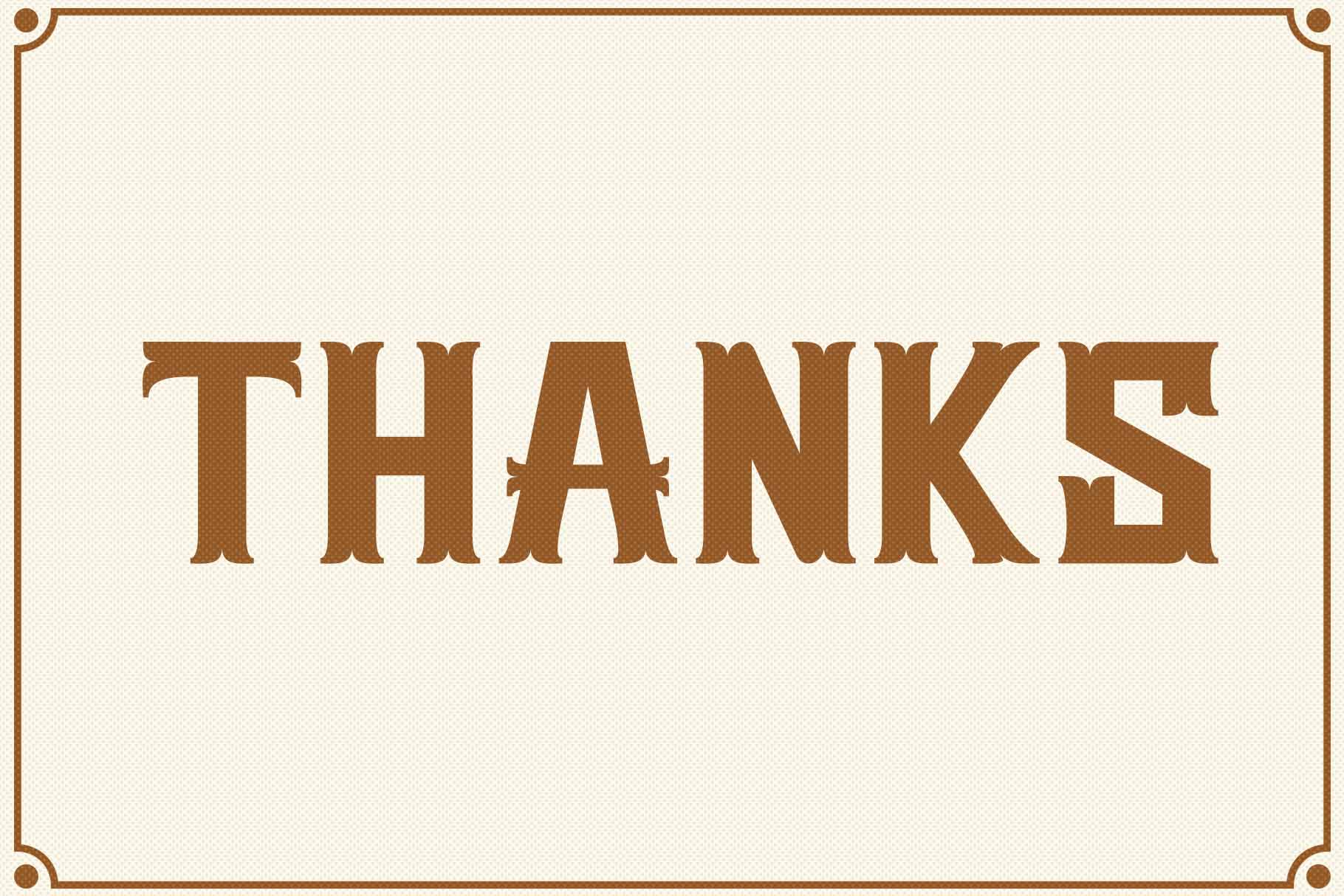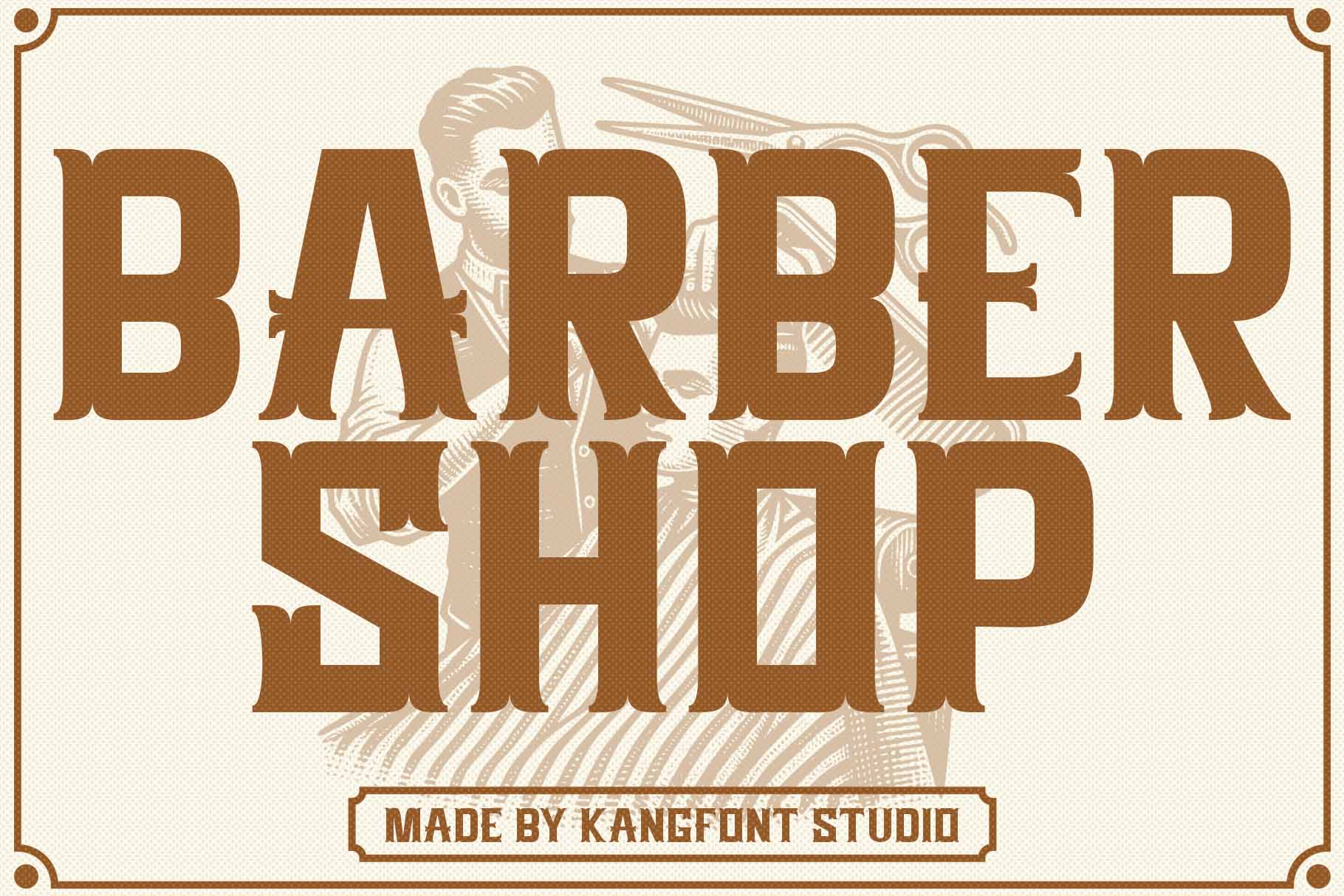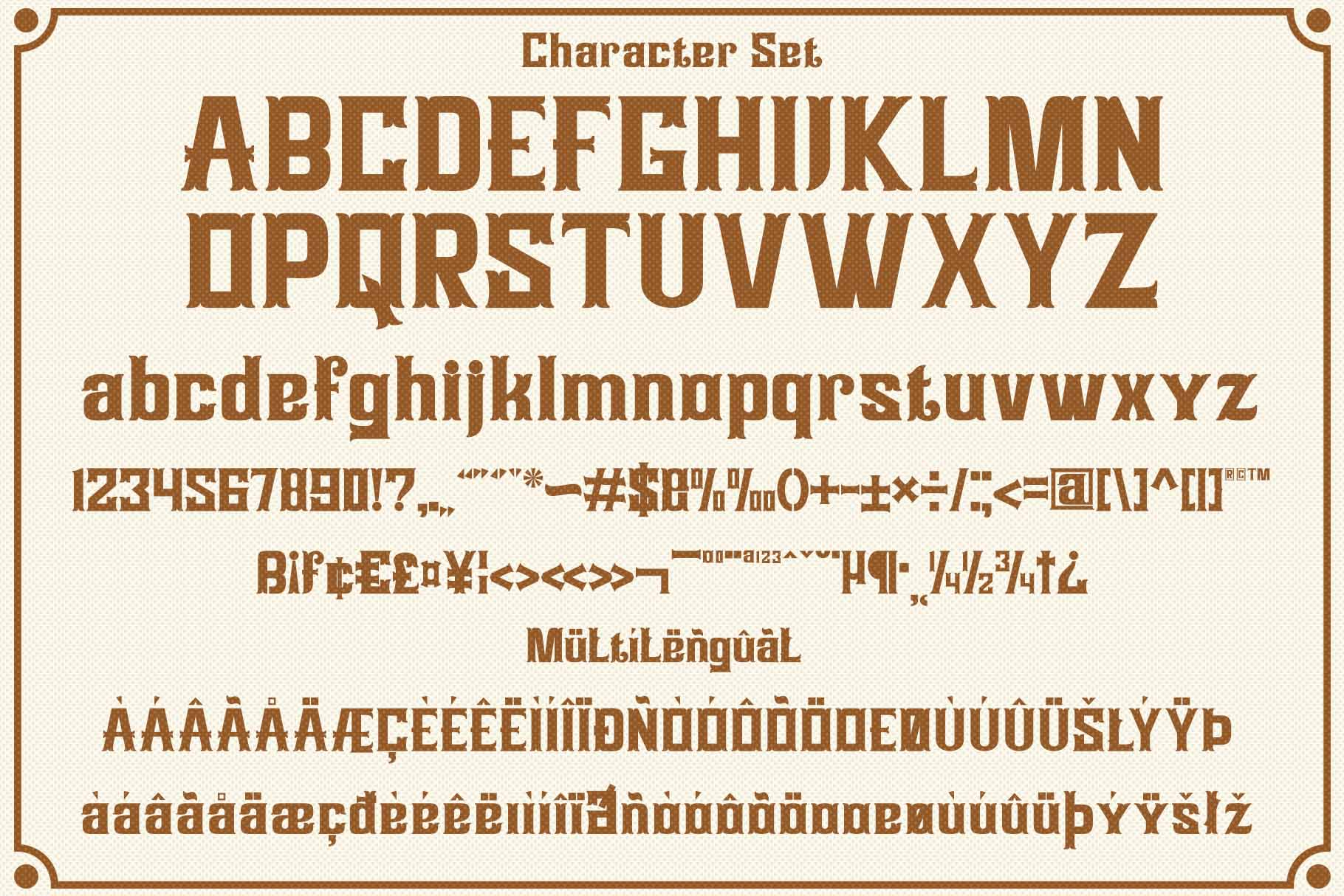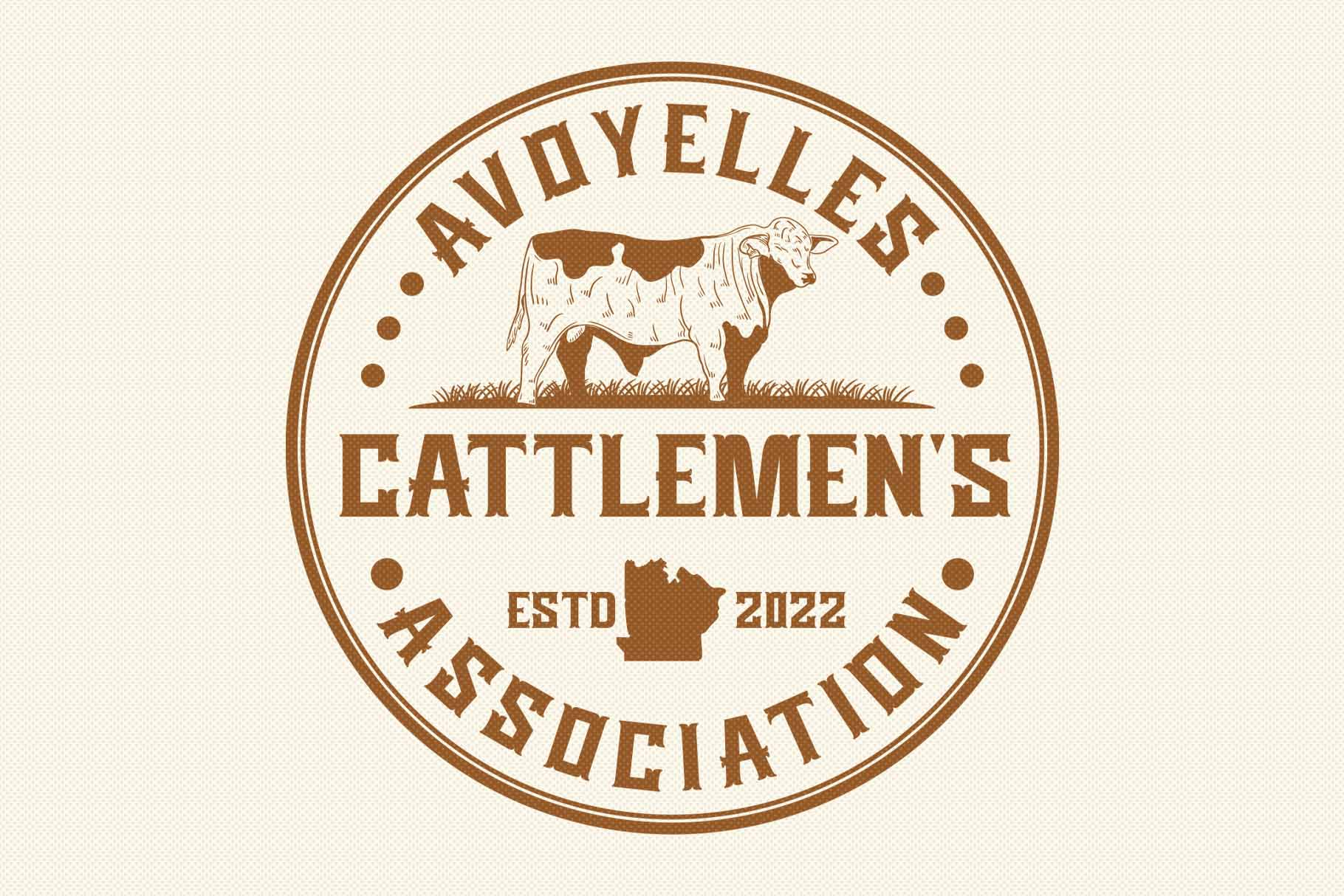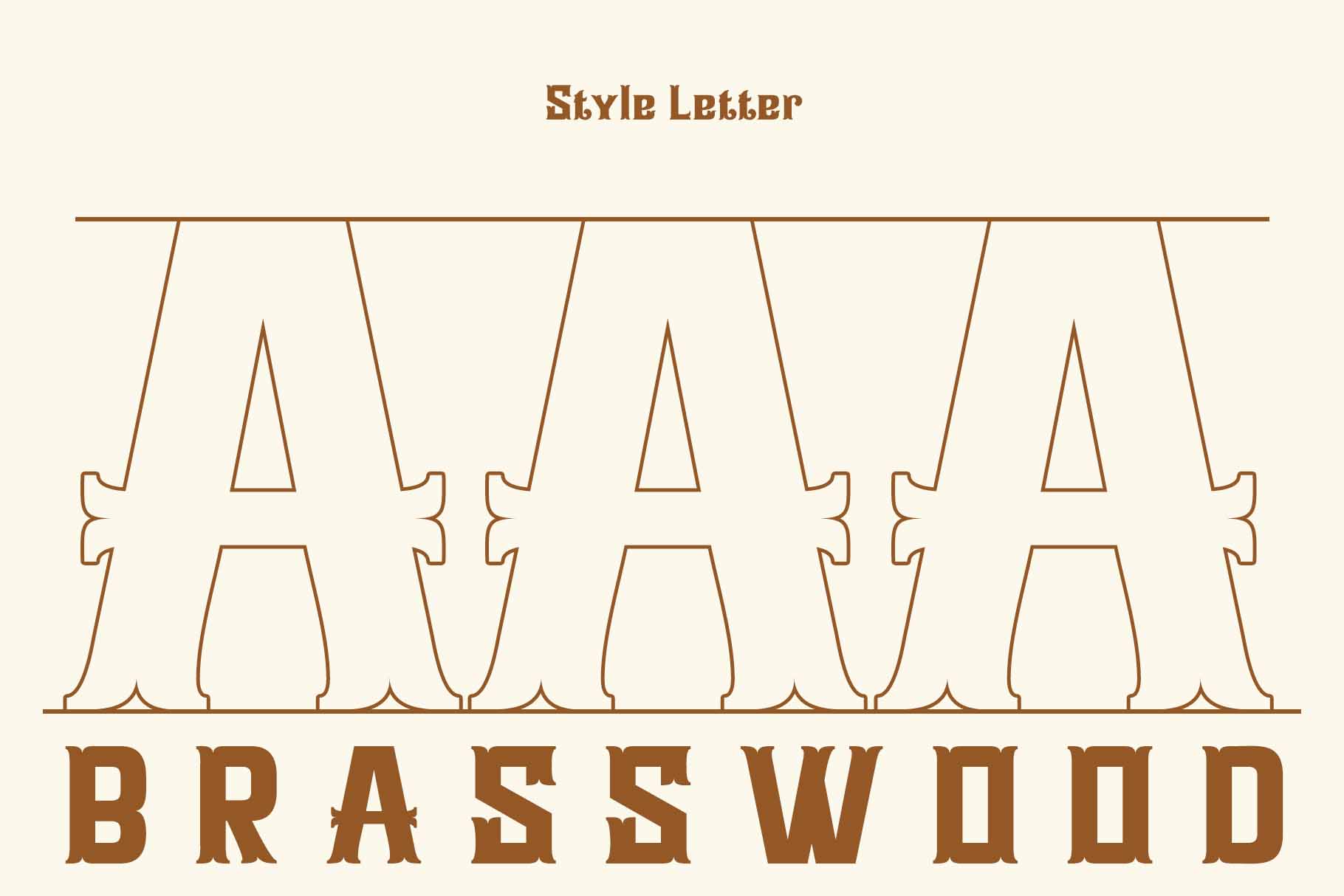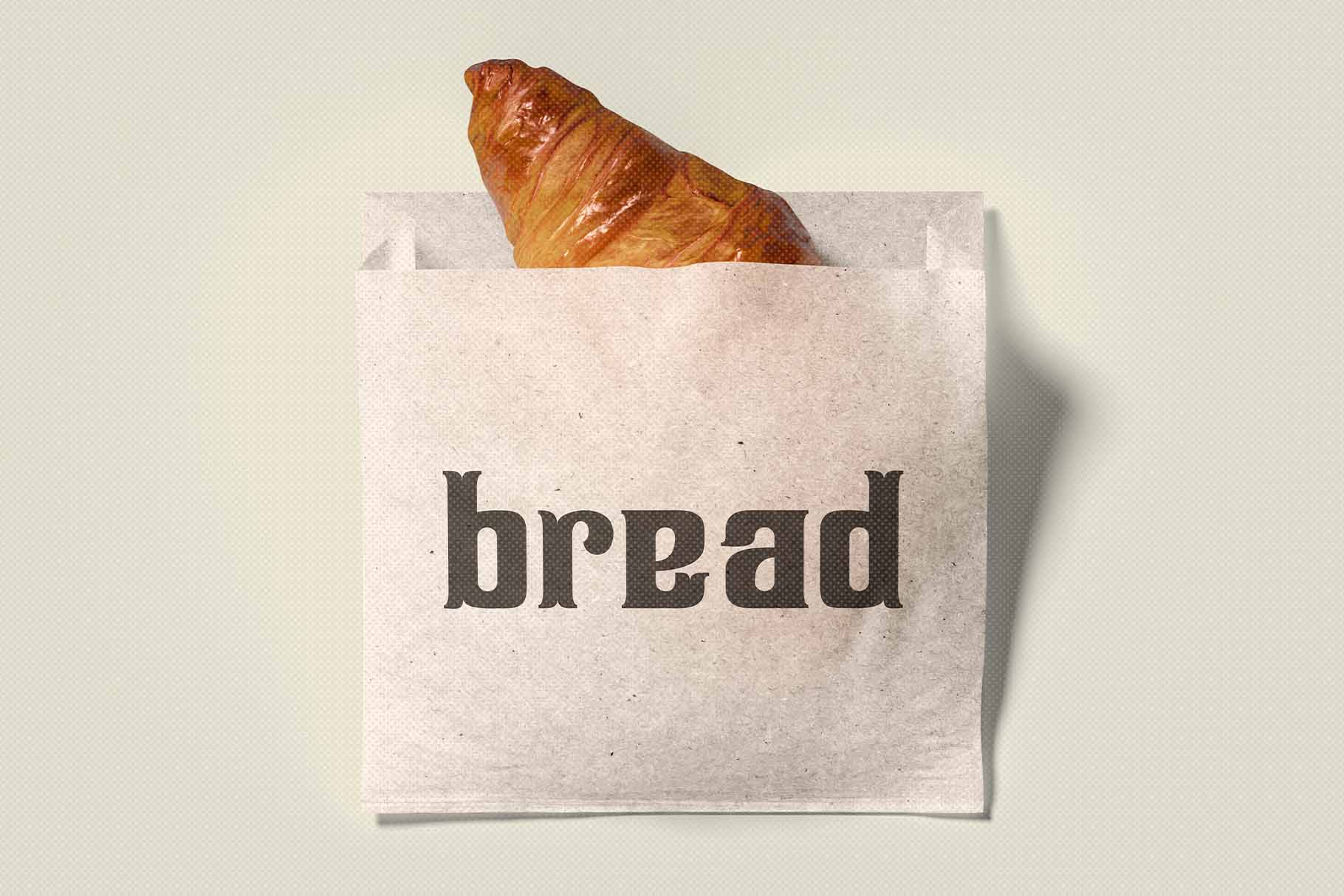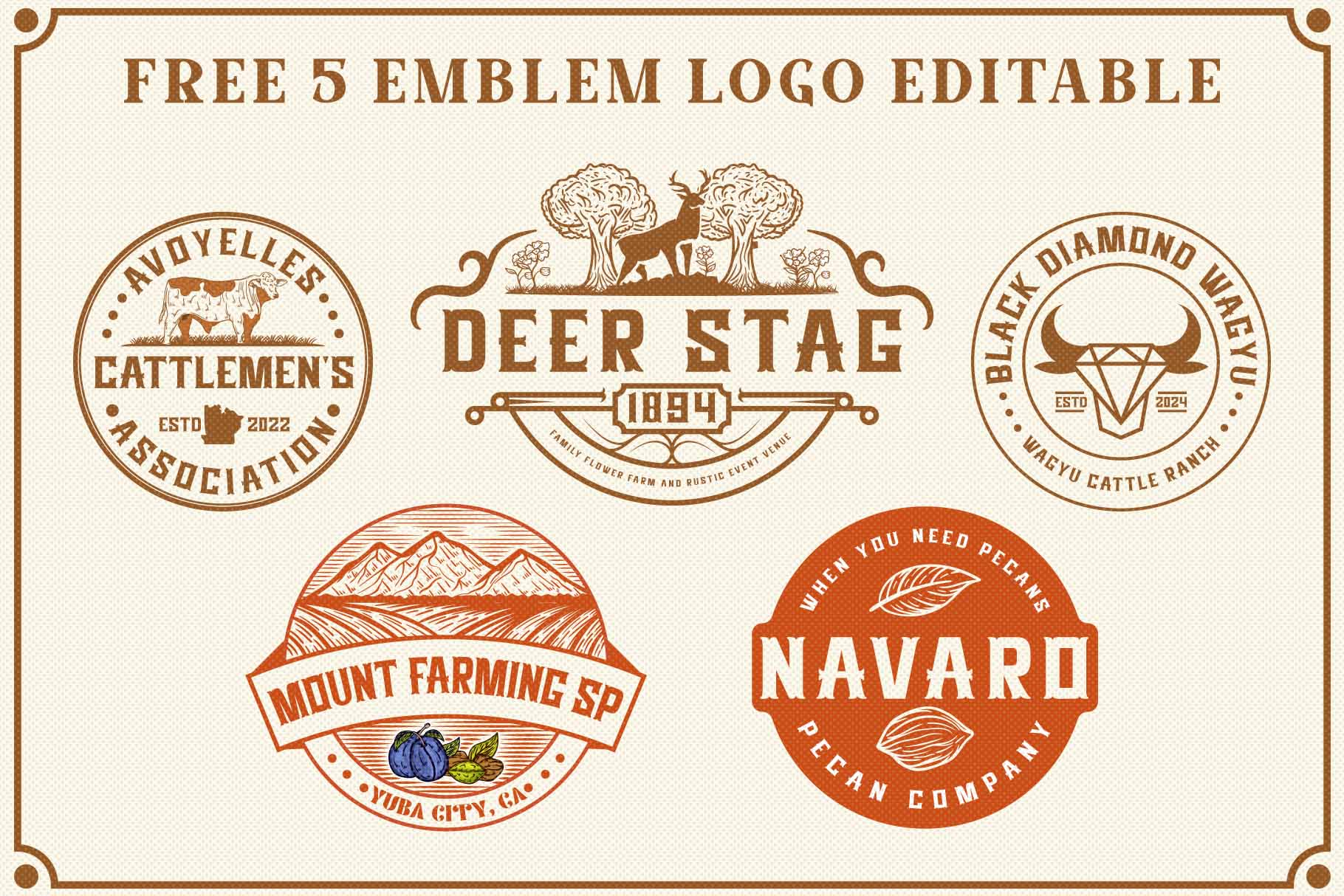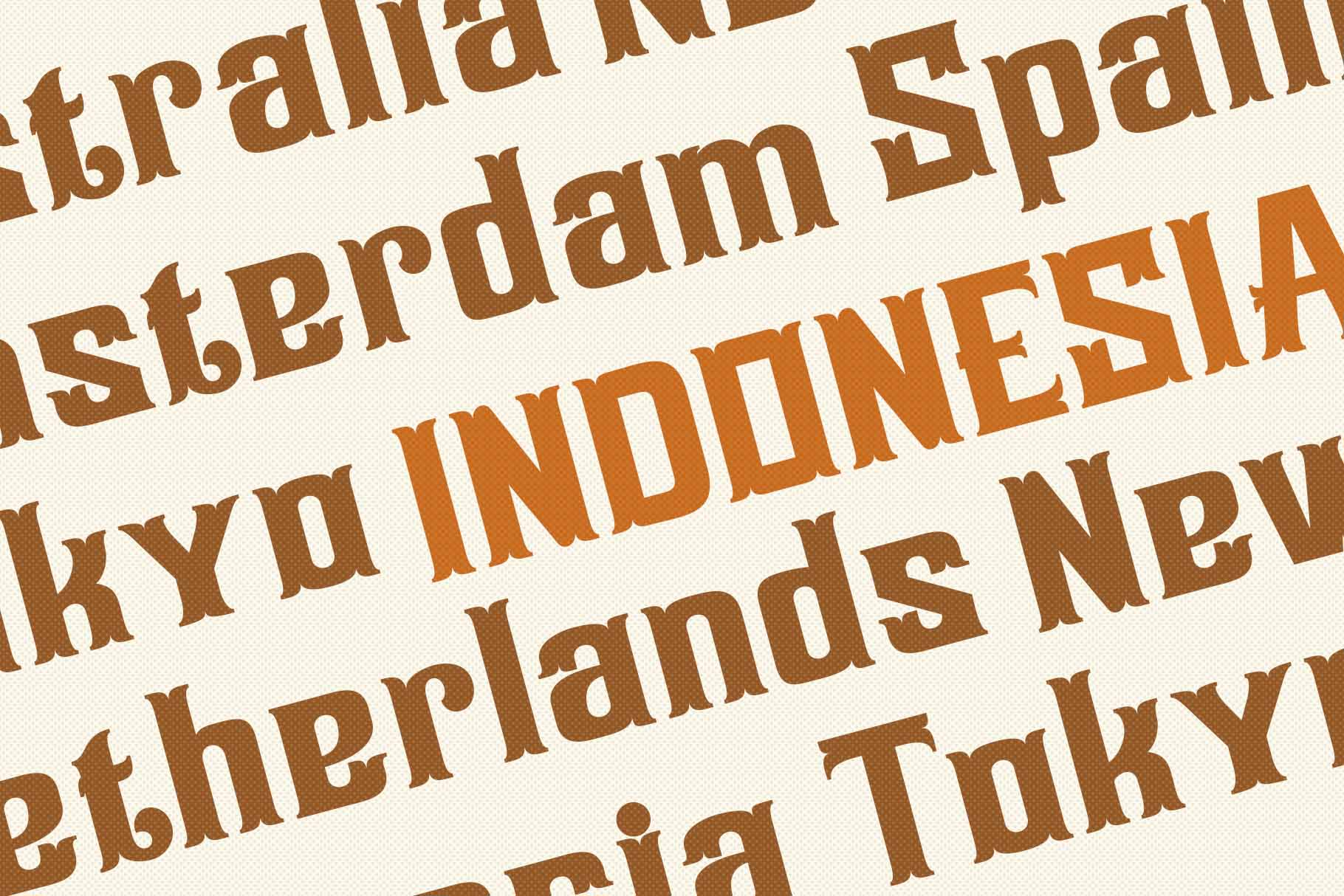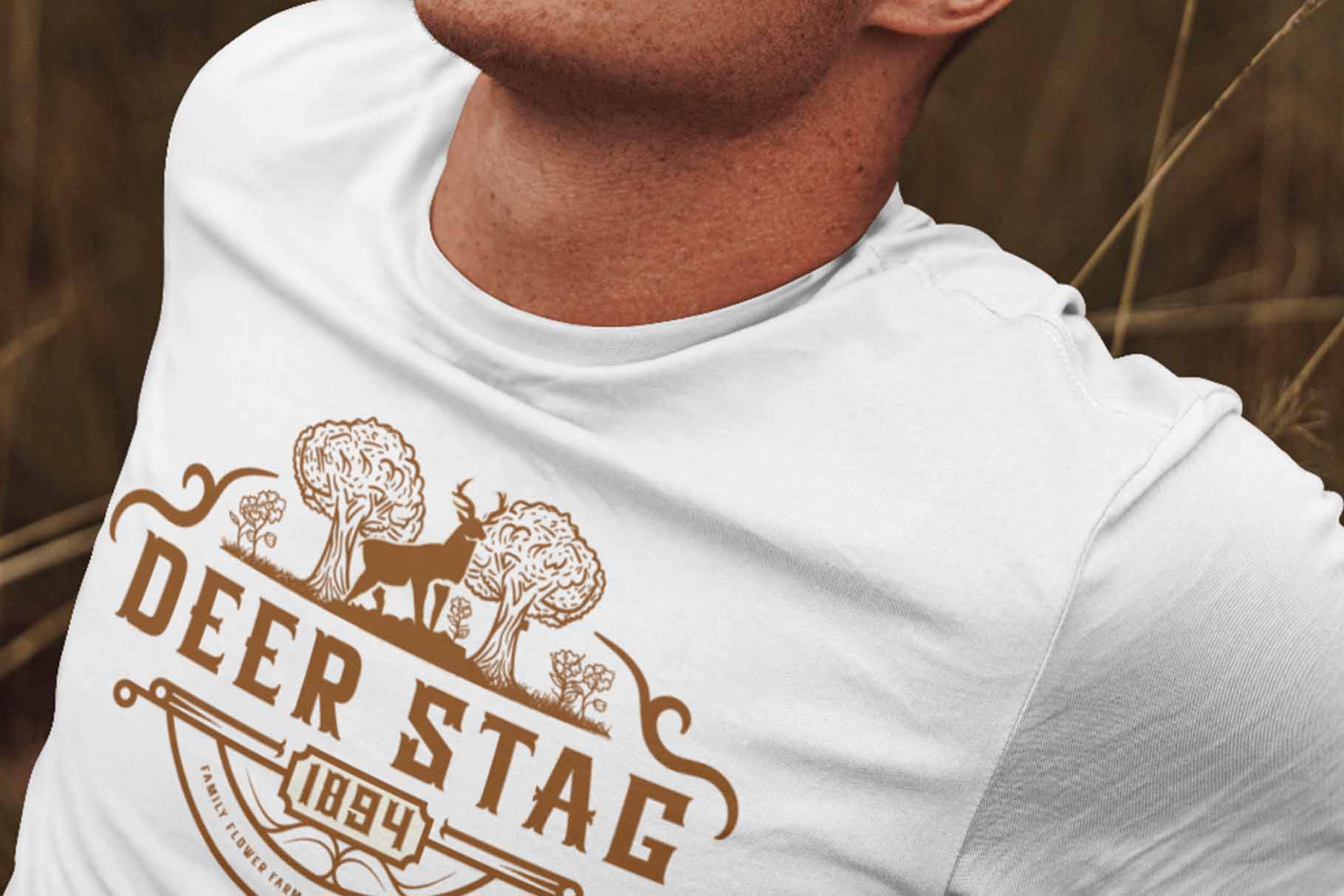
Brasswood – Free 5 Emblem Logo
About Brasswood - Free 5 Emblem Logo
Brasswood Vintage is a classic font with a strong retro vibe. This typeface features bold and sturdy design elements, exuding a masculine and elegant feel. It's perfect for a variety of design purposes, such as logos, labels, packaging, posters, and projects that require a vintage aesthetic.
This font is also equipped with a bonus of 5 editable logo emblems suitable for your business.
• Ligature & Stylistic alternate